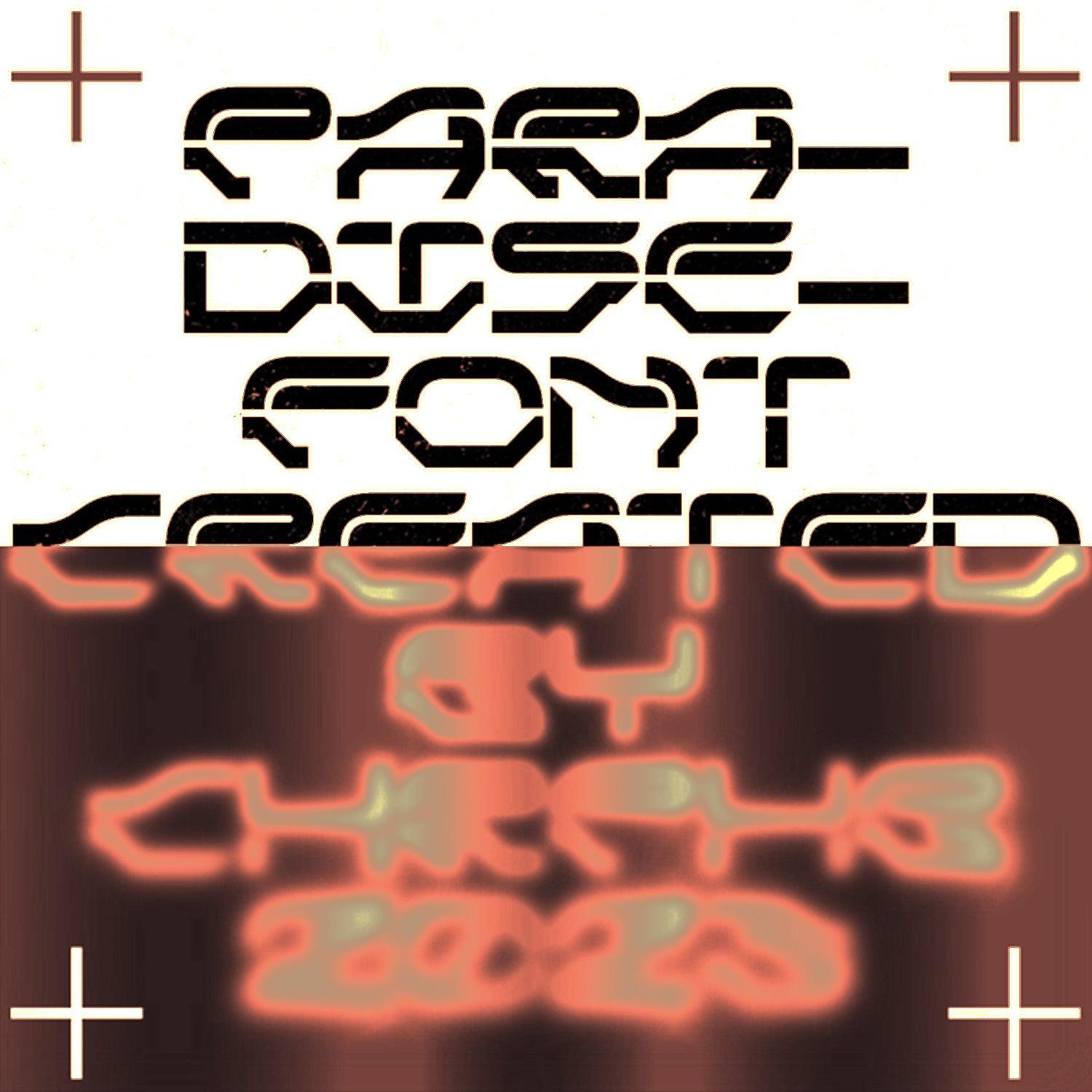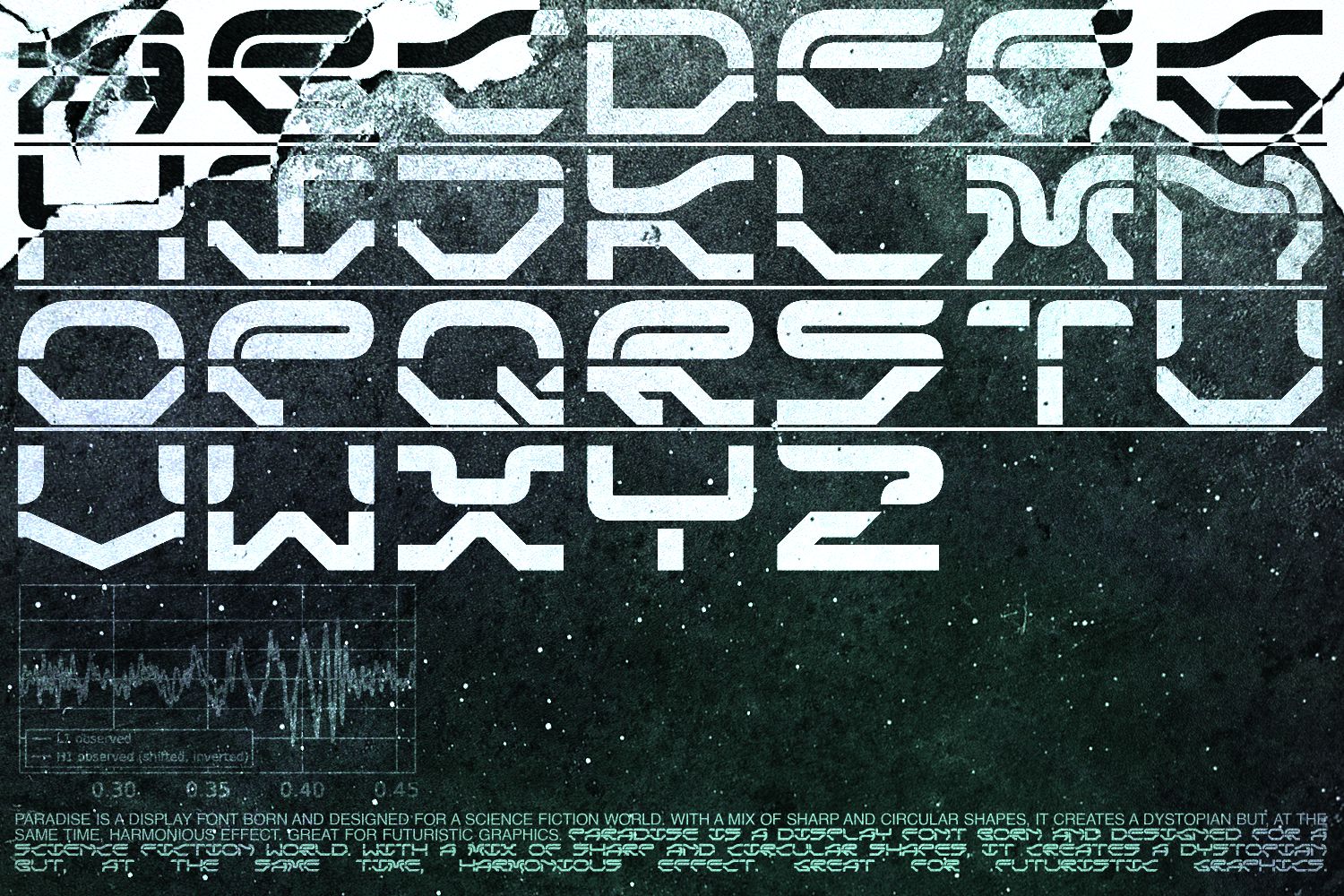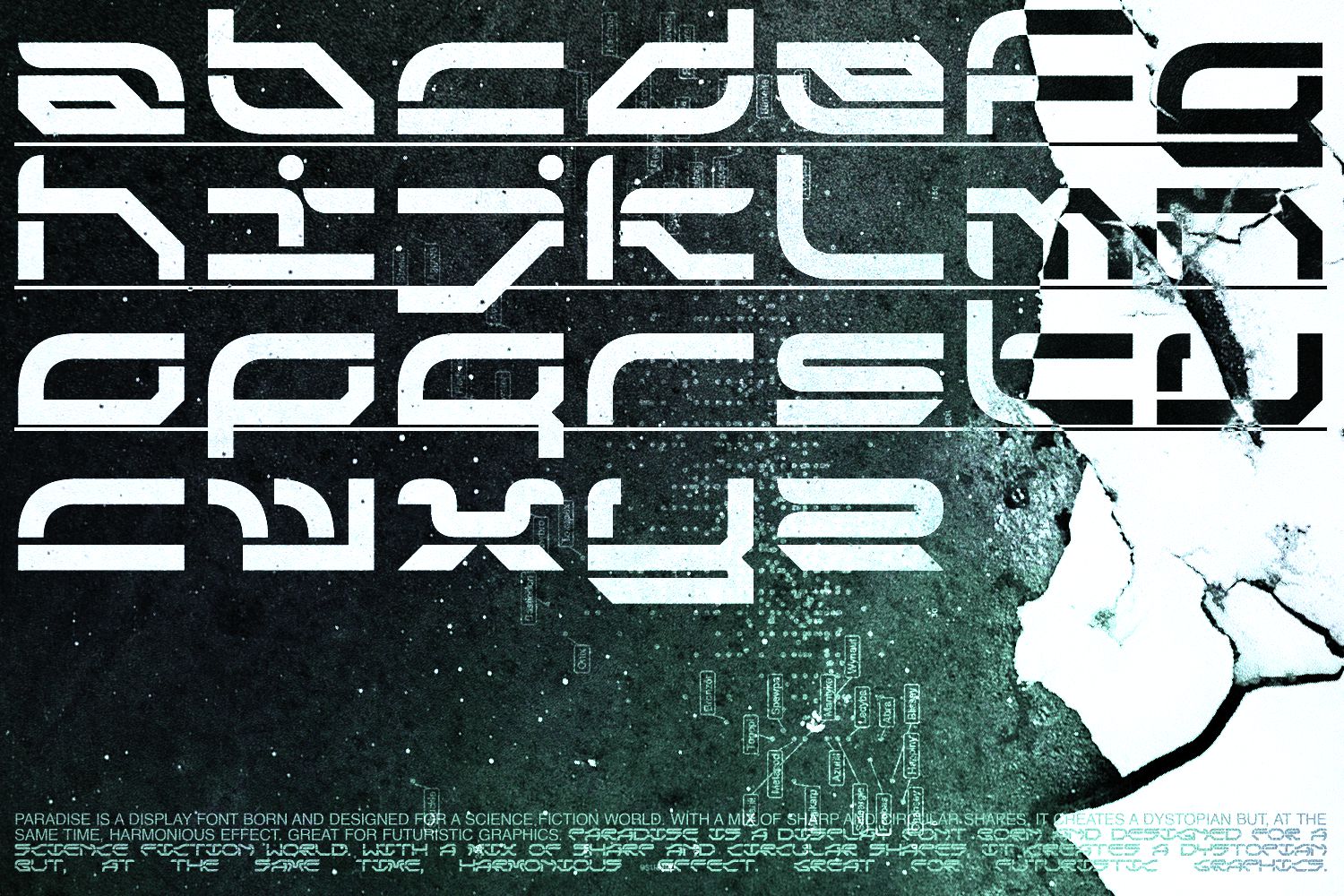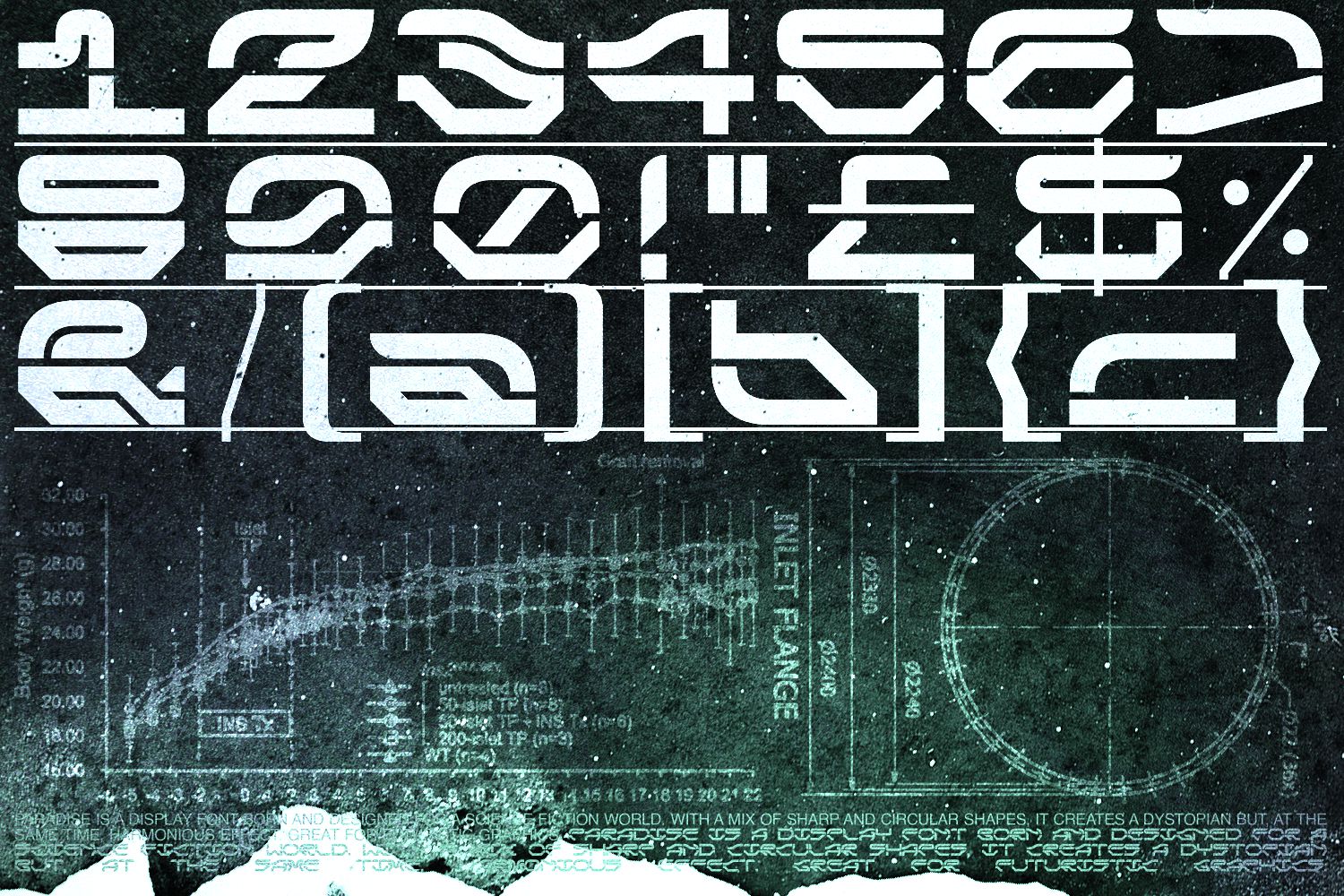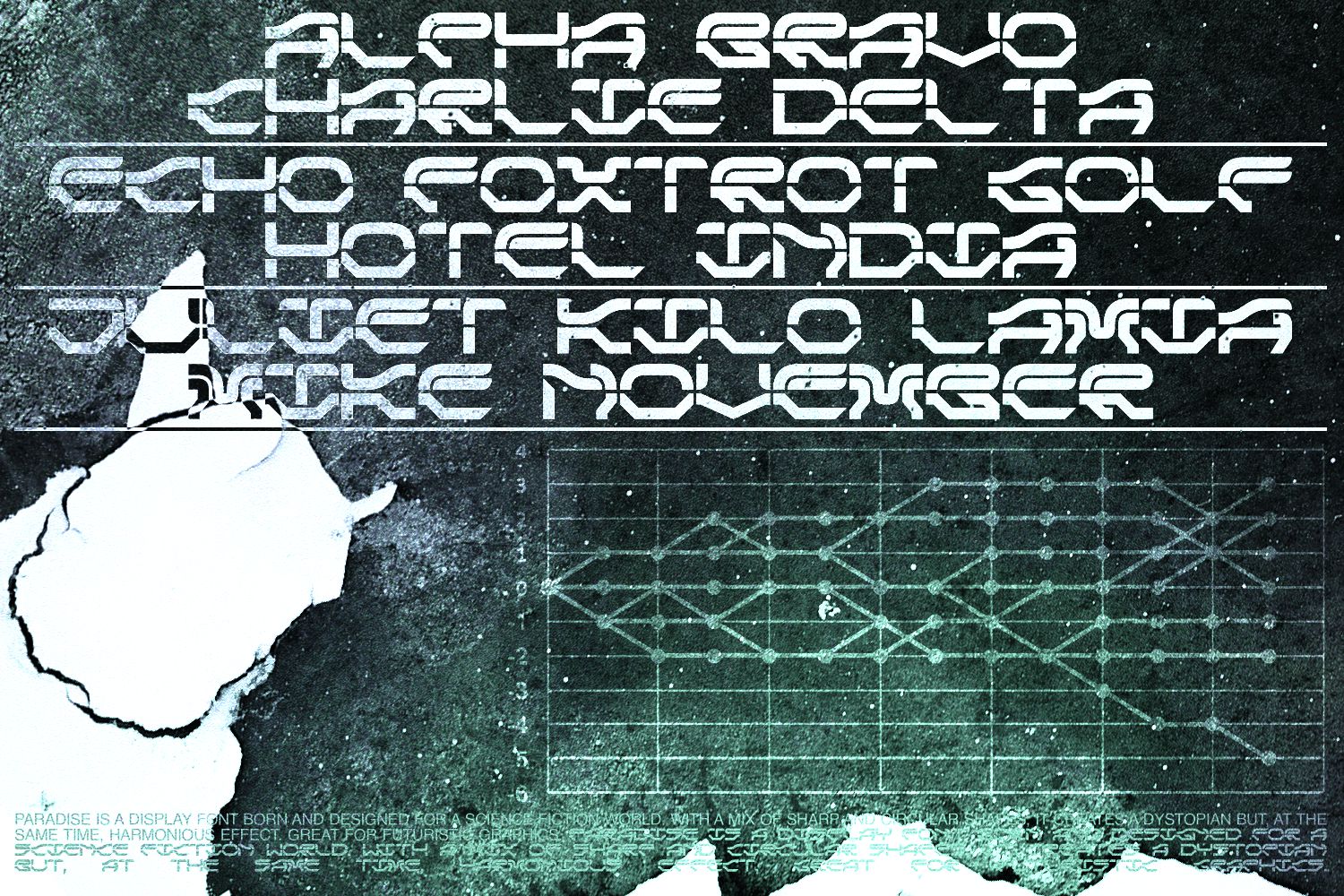
Paradise Typeface
Paradise Typeface is a display font with a blend of sharp and circular shapes, designed to evoke a science fiction aesthetic. Its unique design makes it suitable for futuristic graphics.
Ideal for modern and futuristic graphic design projects. Perfect for posters, branding, album covers, and digital media, ensuring a striking visual impact that captures the essence of a science fiction aesthetic.